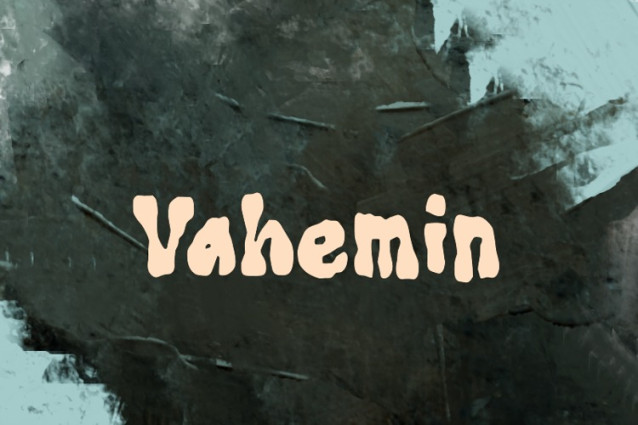
Vahemin Font
Vahemin Font,  perfectly fit for branding, logo, wedding things, greeting cards, fashion, lookbook, marketing promotion, anytime you want to look fancy elegant but still casual.